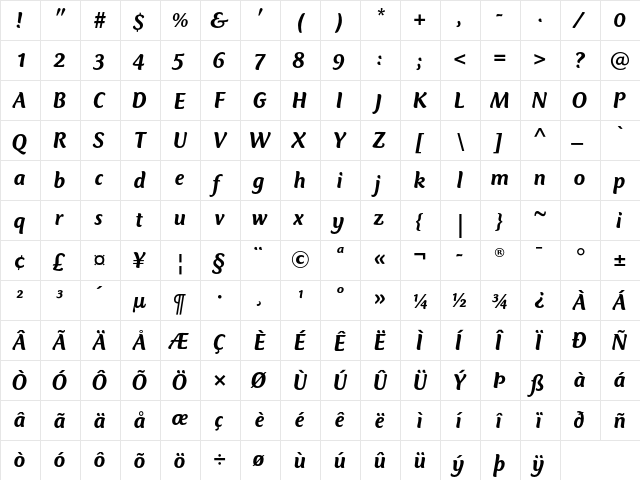
Mercurius CT Std Medium Italic
| Designer | Adrian Williams |
Design Context for Mercurius CT Std Typeface
Mercurius CT Std offers clean, dependable letterforms without strong stylistic allegiance, making it a practical choice for designers who need flexibility. The slanted form adds forward momentum and visual energy.
Pro Tip: Use Mercurius CT Std for emphasis, pull quotes, and subheadings where its slanted energy can add rhythm to the layout.